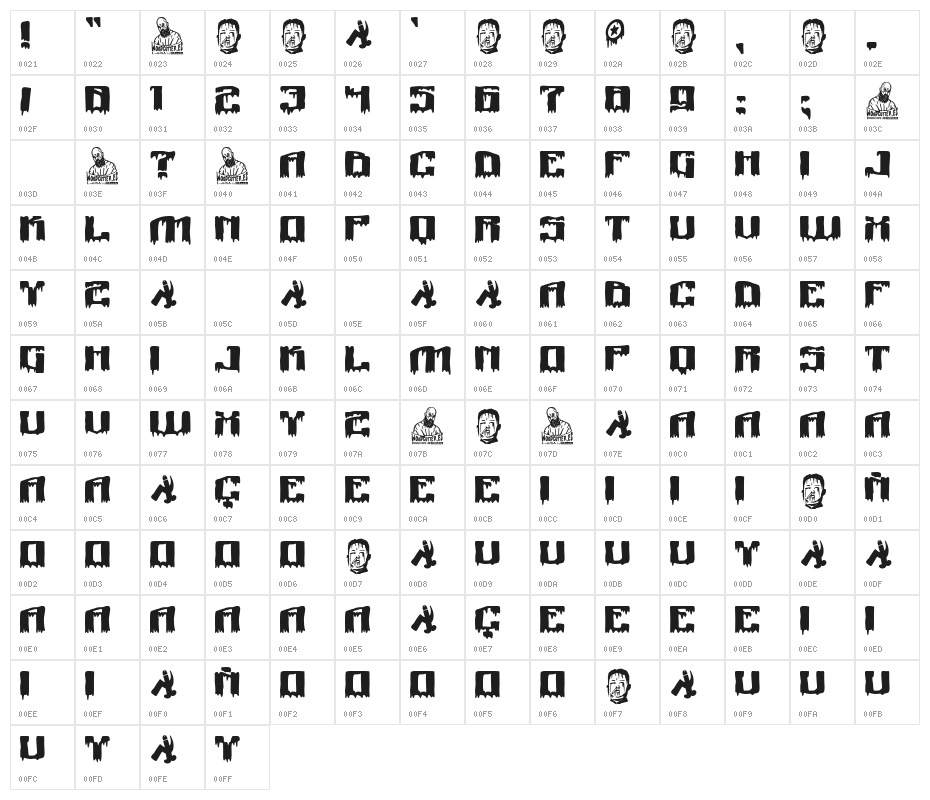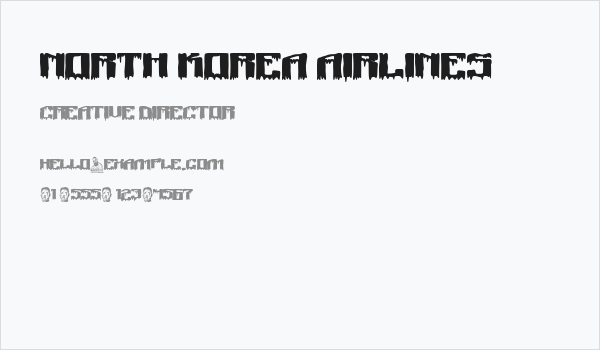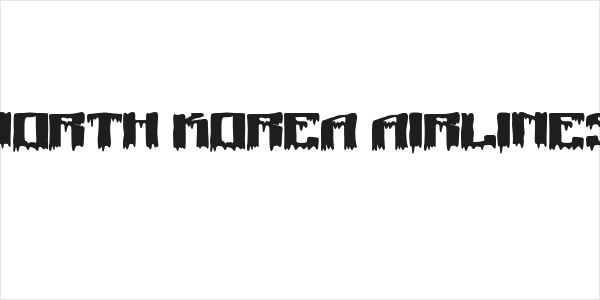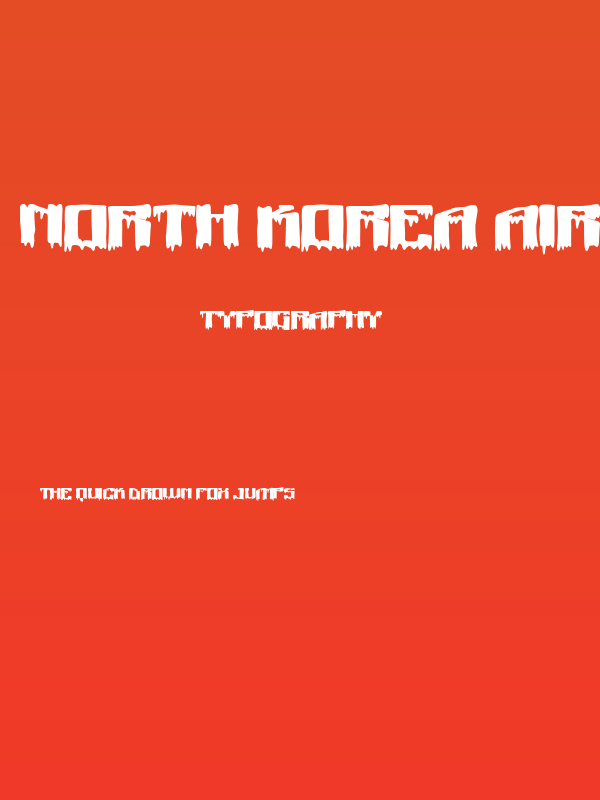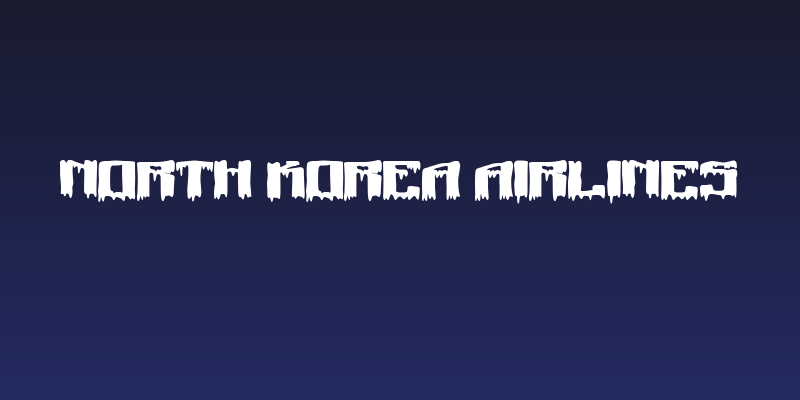
North Korea Airlines Font
North Korea Airlines Description
A bold, display typeface with a dripping, distressed effect reminiscent of melting or horror-themed visuals. The characters are uppercase, blocky, and have irregular lower edges that create a dramatic, unsettling appearance. The font includes numbers and a selection of symbols with similar stylistic treatment.
| Overall Style | Decorative, Horror, Grunge |
| Use Case | Headlines, Posters, Logos, Themed Graphics |
| Proposed Projects | Halloween posters, horror movie titles, haunted house flyers, themed event branding, graphic novels, video game titles. |